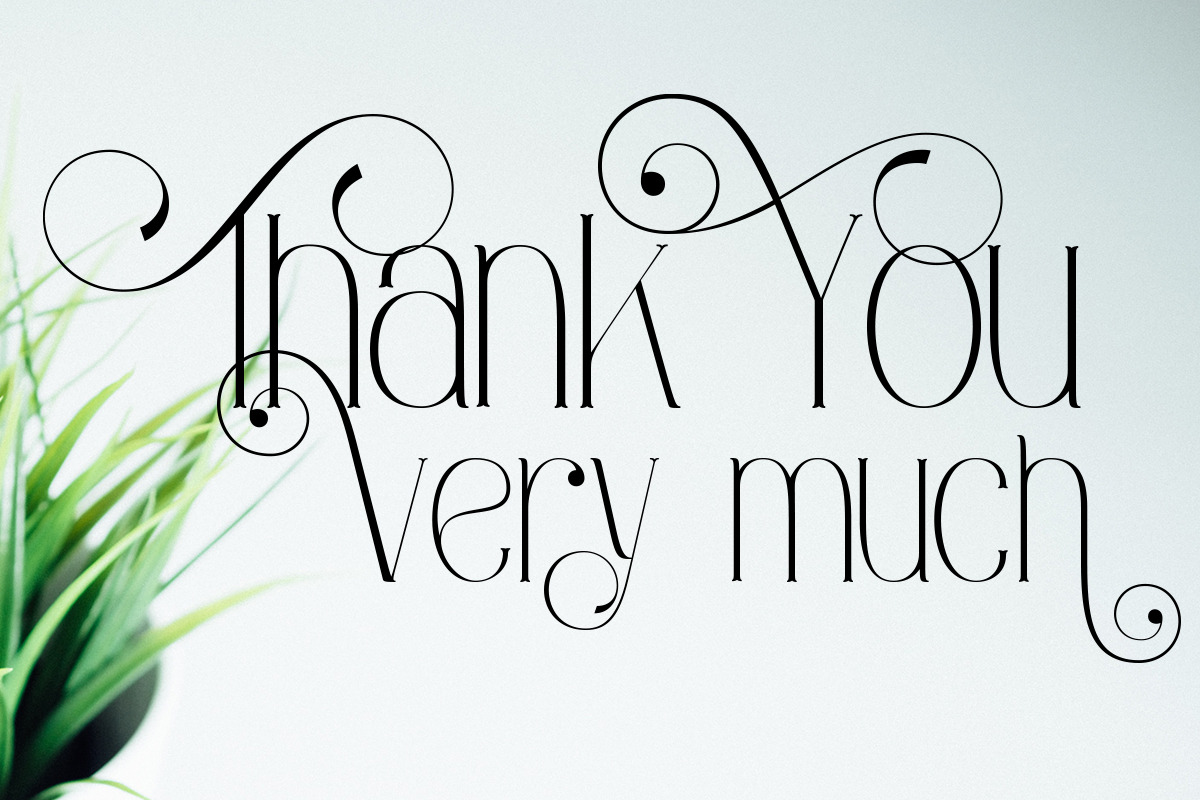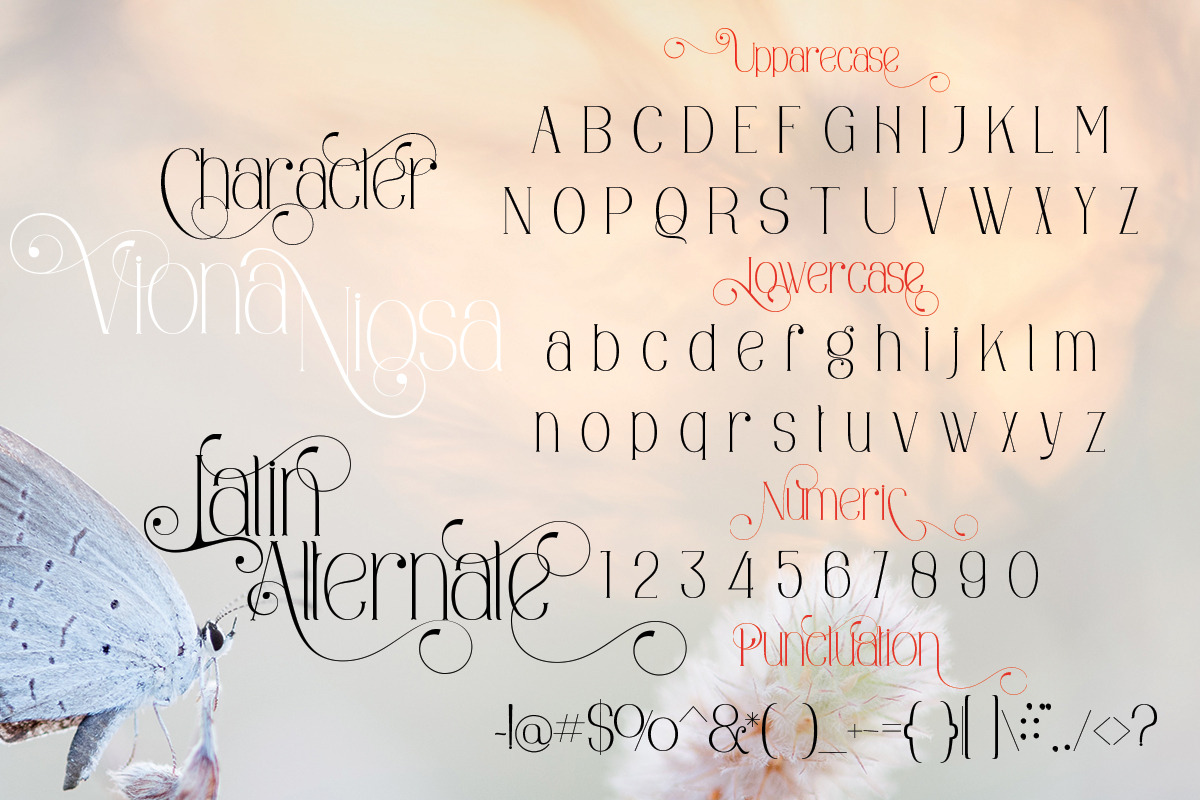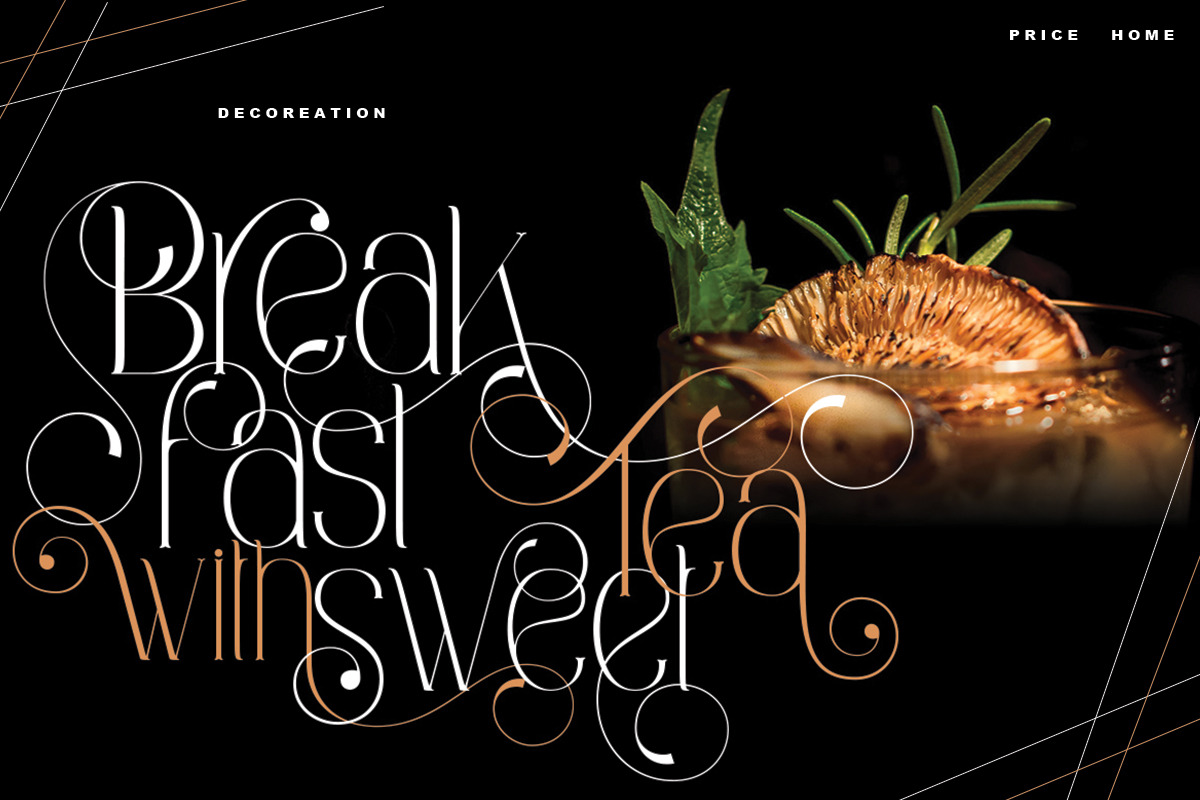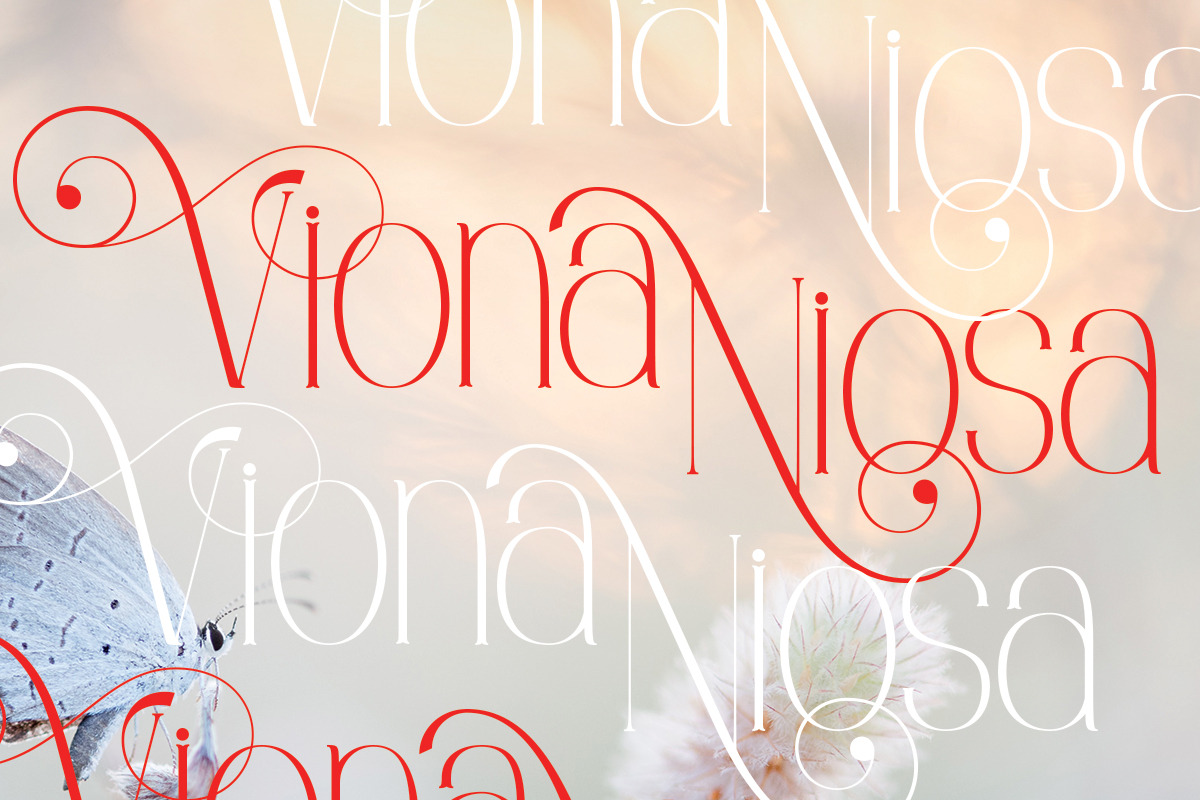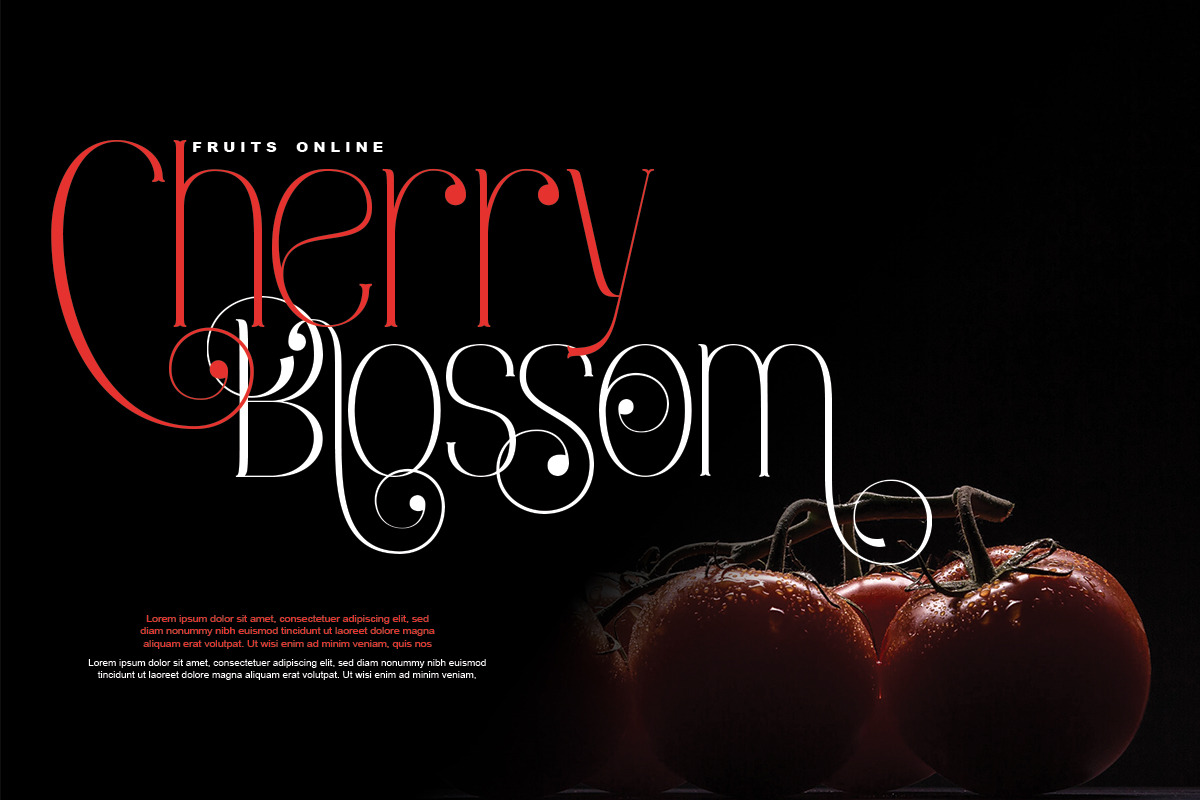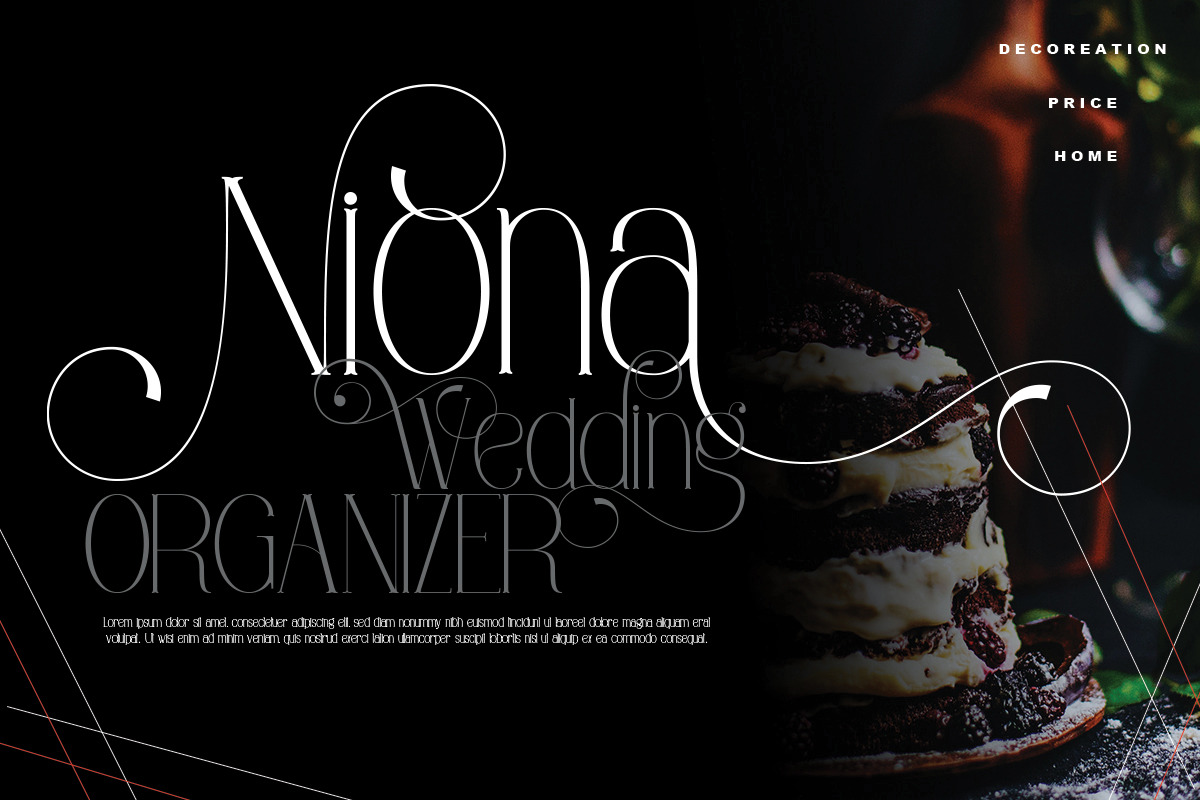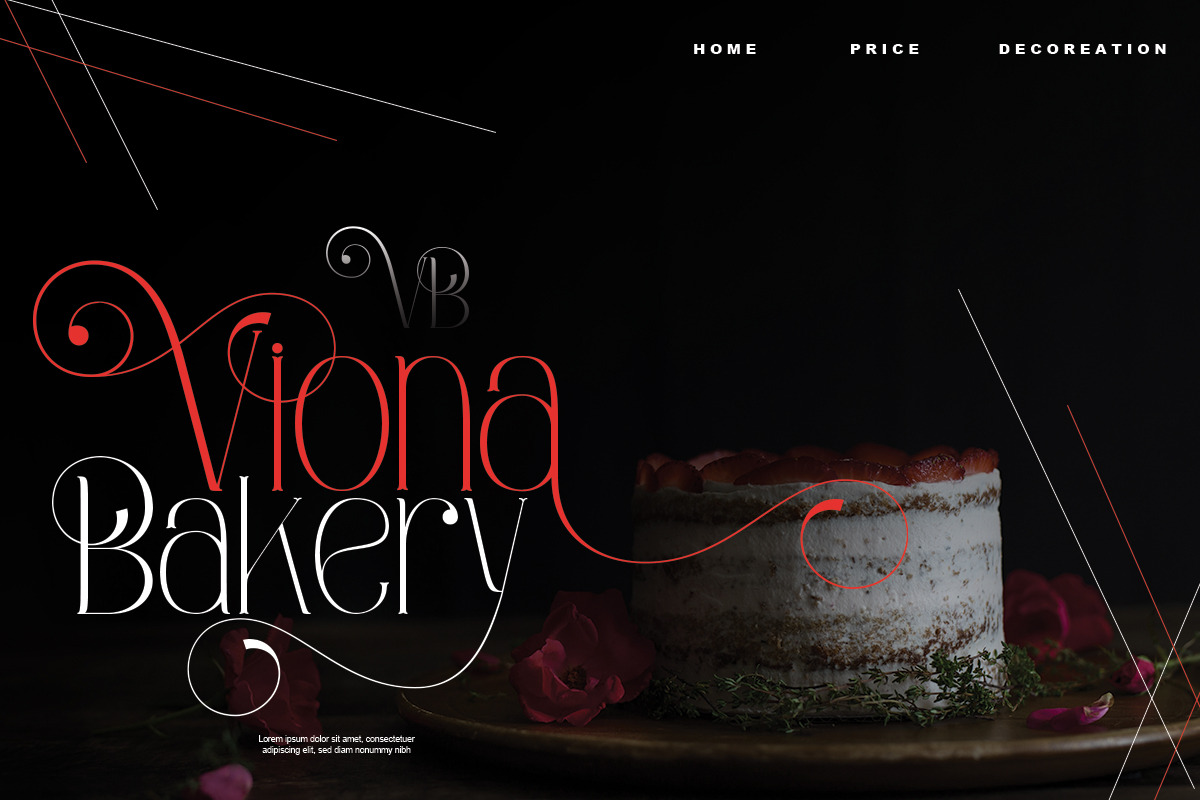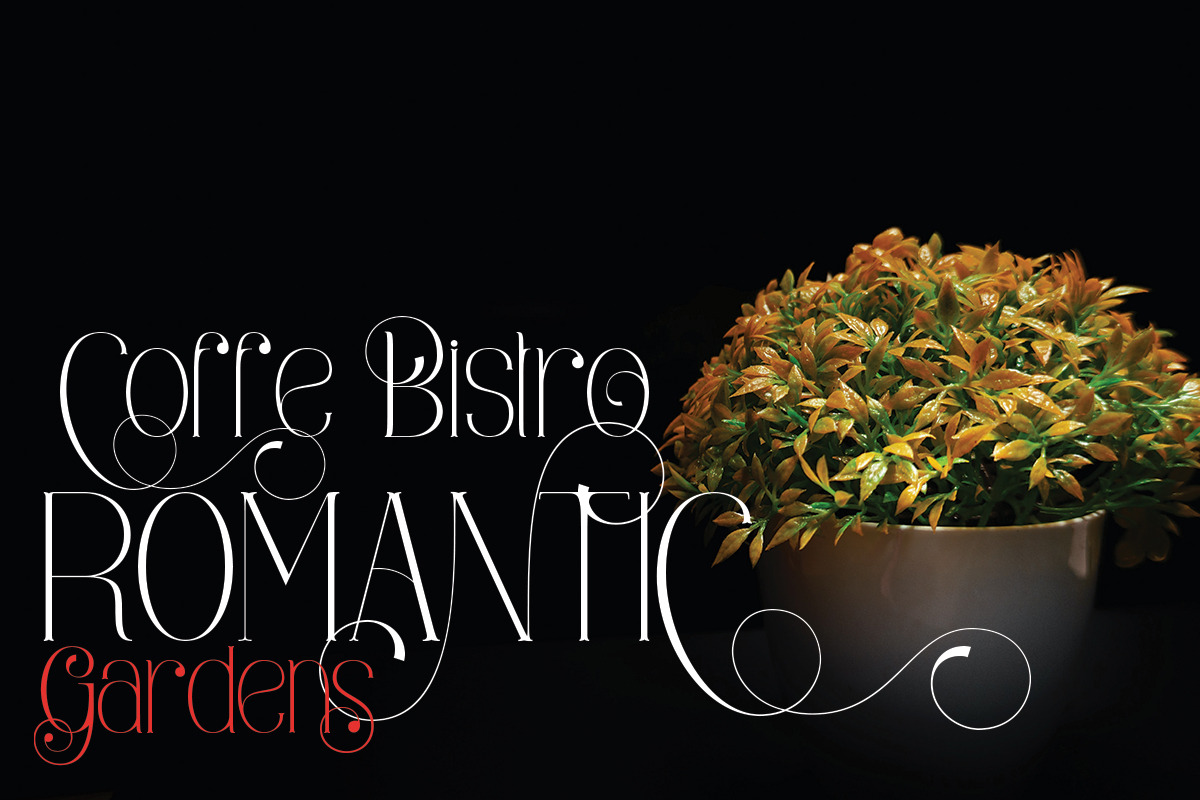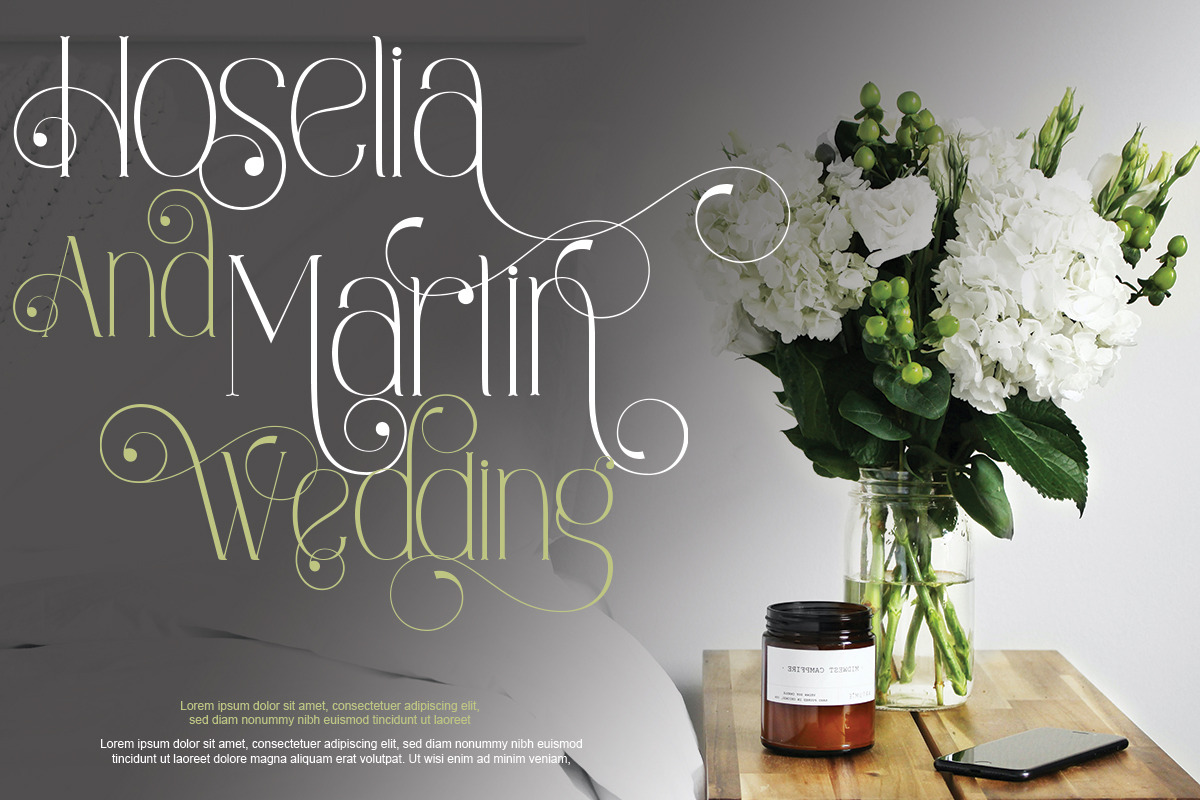
Viona Niosa
Viona Niosa Serif This is a simple but fancy elegant thin serif font, it will change your project to be more professional, this font is also PUA coded which means you can easily access all alternates on all glyphs, perfect for, social media, store names, magazines, invitations, banners, and much more